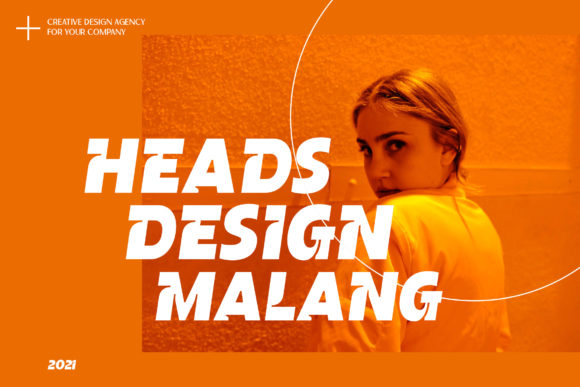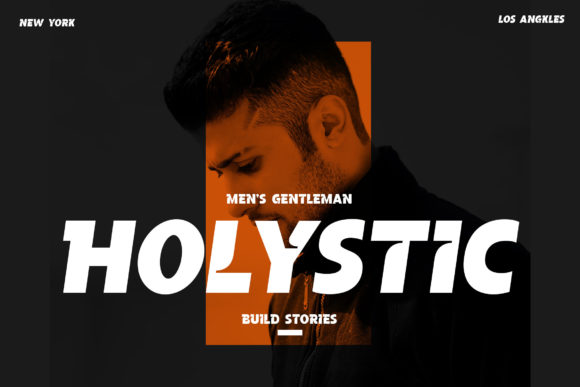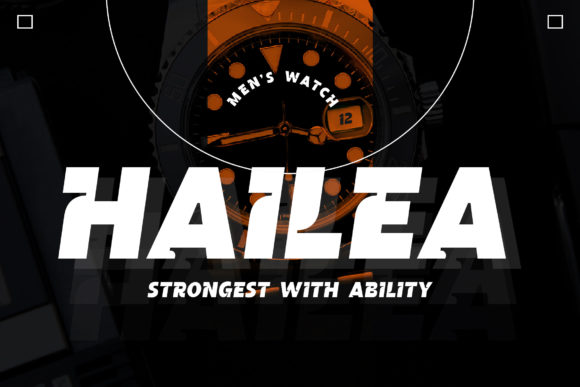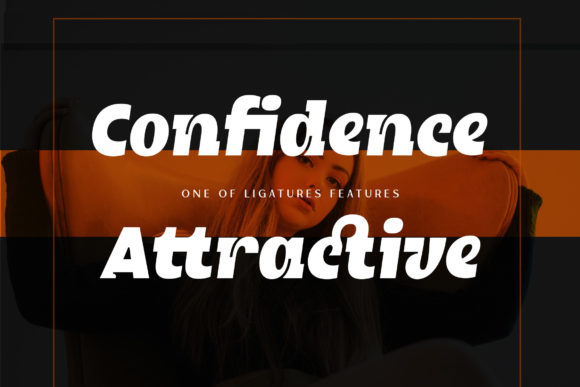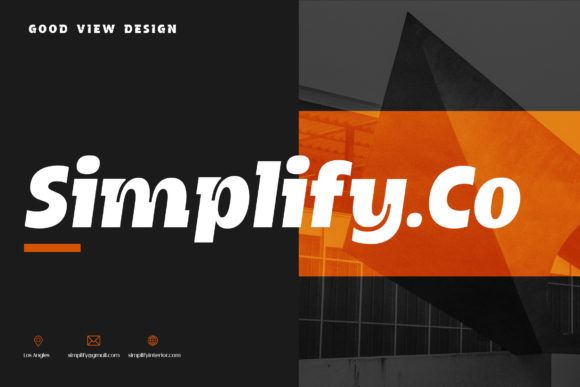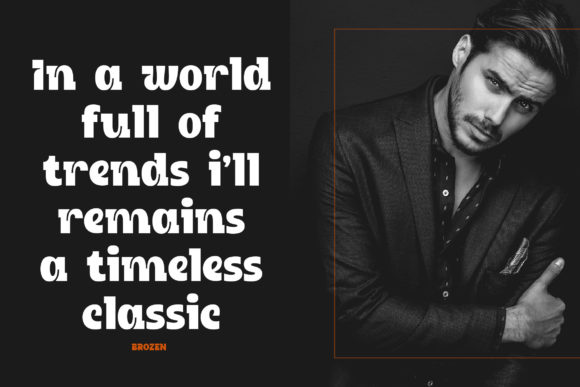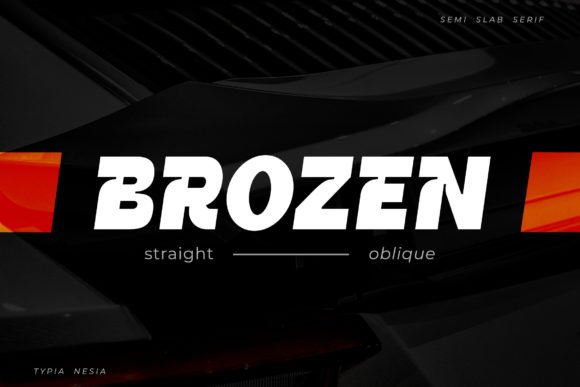
Unlock the Power of Creative Expression with Brozen Font
Remember that moment when a single font choice transformed your entire design project? For many of us, it’s a familiar feeling – one that sparks excitement and motivates us to push creative boundaries. If you’re on the lookout for a bold and eye-catching display font that can elevate your work, look no further than the Brozen Font.
| 👤 Author | Typia Nesia |
This stunning font is designed to make a statement, with its cool, thick letters and confident presence. As a PUA-encoded font, Brozen Font offers unparalleled accessibility to its extensive range of glyphs and swashes, allowing designers to add a personal touch to their projects. Whether you’re working on a branding project, a social media campaign, or a digital publication, Brozen Font is an invaluable asset that can take your designs to the next level.
Brozen Font Key Features
- Unique Characteristics: Brozen Font features a unique blend of modern and vintage elements, with intricate details and ornaments
Designer Review: Brozen Font
Overall, I have mixed feelings about the Brozen Font. While it has some nice qualities, it also has some significant limitations.
- ✨ Unique and stylish design: The Brozen Font has a distinctive, eye-catching look that can add a touch of sophistication to any project.
- ✨ Good legibility: Despite its unconventional design, the font is surprisingly easy to read, making it a good choice for body text.
- ✨ Versatile: The Brozen Font comes in a range of weights and styles, making it a good choice for a variety of design projects.
- ⚠️ Limited character set: The Brozen Font has a relatively limited character set, which may make it difficult to use in projects that require a wide range of special characters or languages.
- ⚠️ Not suitable for small text: The font’s unique design can make it difficult to read at small font sizes, which may limit its use in projects that require a lot of fine print.
- ⚠️ May not be suitable for all audiences: The Brozen Font’s distinctive design may not be to everyone’s taste, which may make it a less popular choice for projects that require a more neutral or conservative look.
Overall, I think the Brozen Font is a solid choice for designers who want to add a touch of personality to their projects. However, it may not be the best choice for every project, and designers should carefully consider the font’s limitations before using it.
Tips for Getting the Most Out of Brozen Font
Use the Brozen Font to add a touch of elegance and sophistication to your designs. Experiment with different font sizes and styles to create visual interest.
Use the Brozen Font for:
- Corporate branding and marketing materials.
- High-end product packaging and labels.
Alternatives to Brozen Font
Compared to Brozen Font, Open Sans has a more neutral tone and is more versatile in its application. Brozen Font has a more unique, hand-drawn feel, while Open Sans is more standardized.
Lato has a similar feel to Brozen Font, with a mix of modern and classic elements. However, Lato is more polished and refined, while Brozen Font has a more rough-around-the-edges aesthetic.
Montserrat has a similar urban feel to Brozen Font, but with a more refined and polished look. Brozen Font has a more hand-drawn feel, while Montserrat is more geometric and modern.